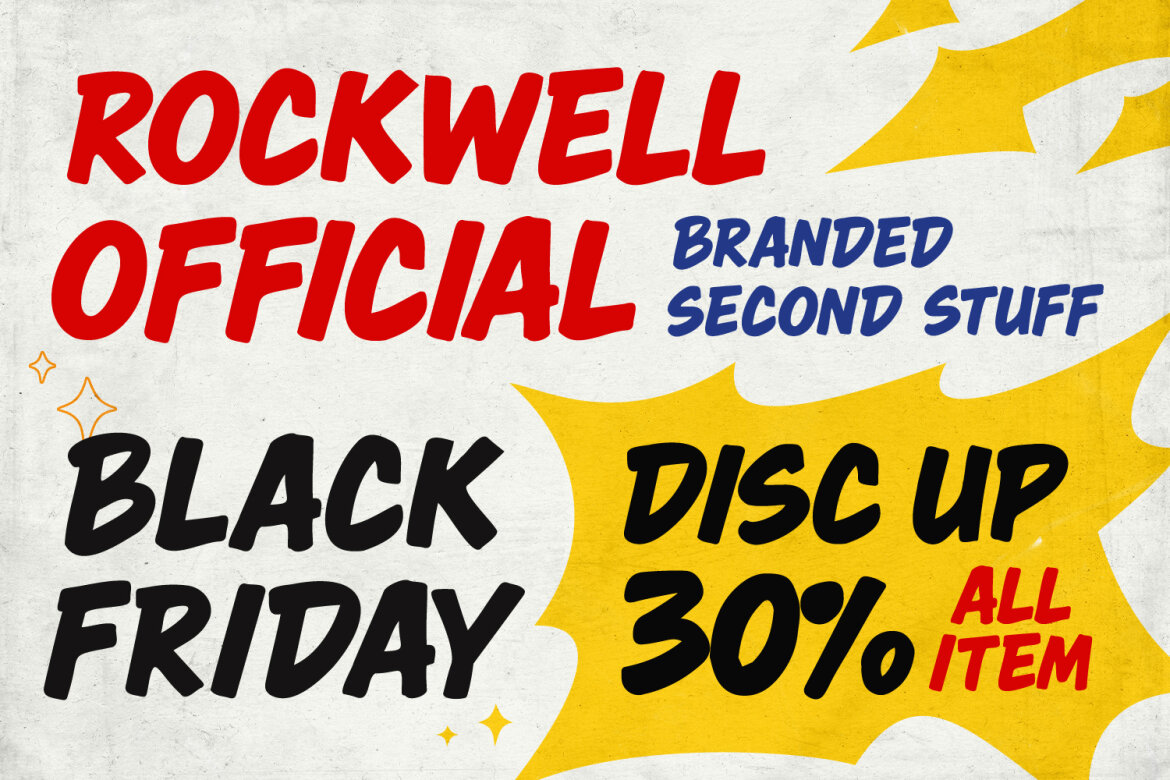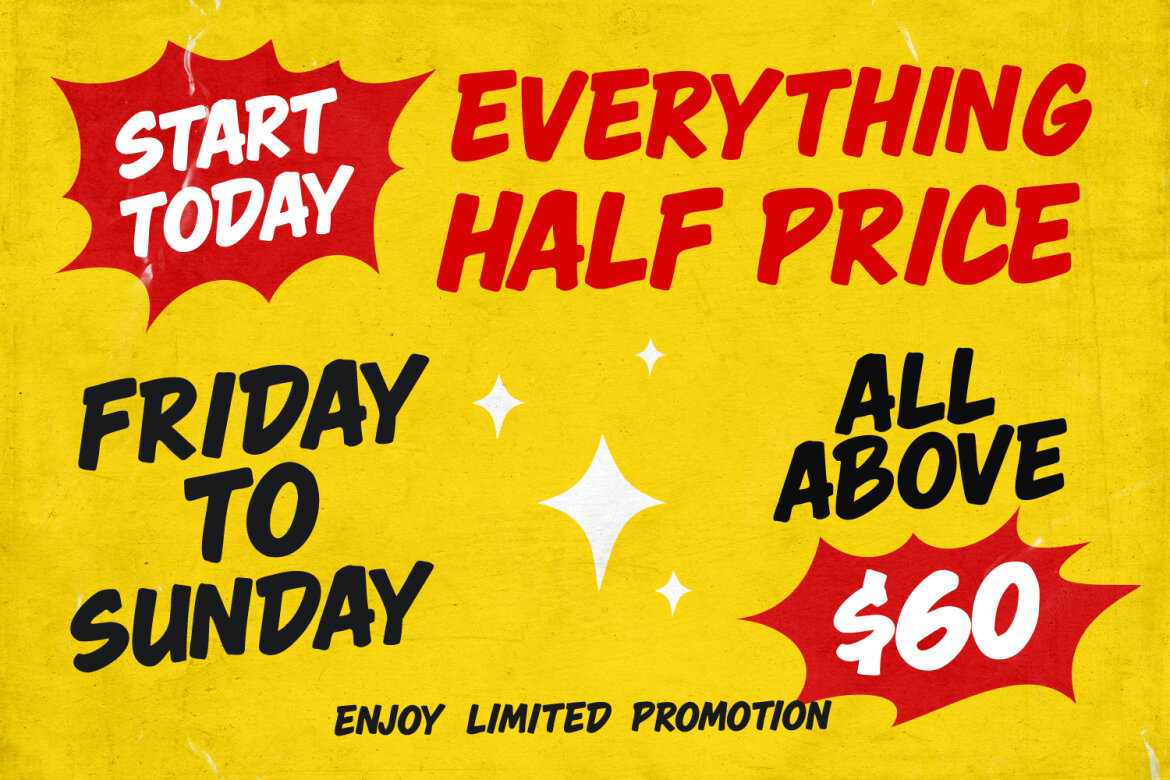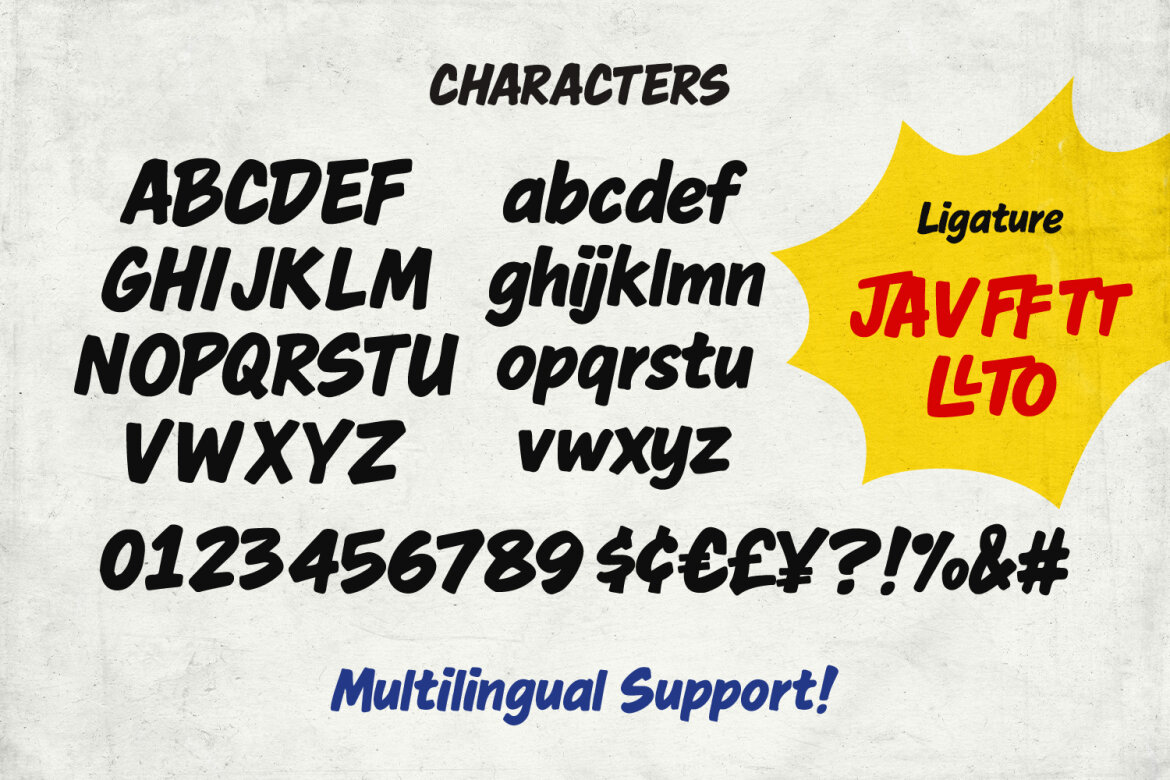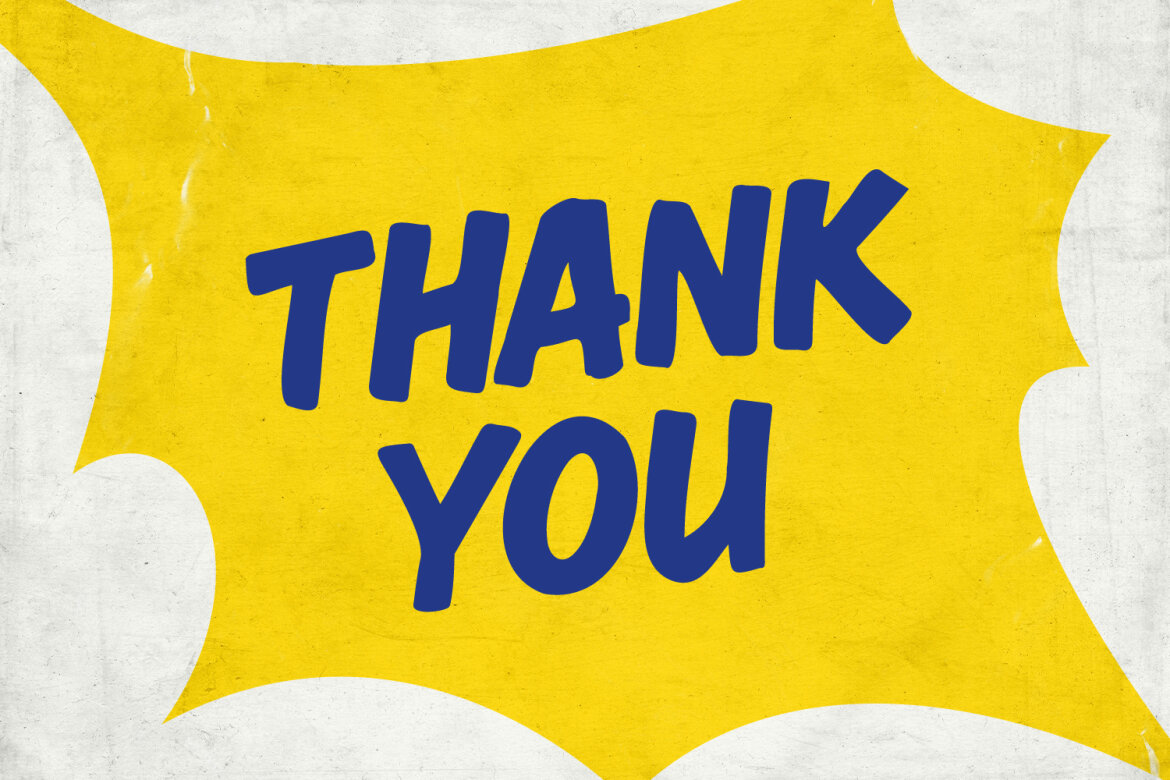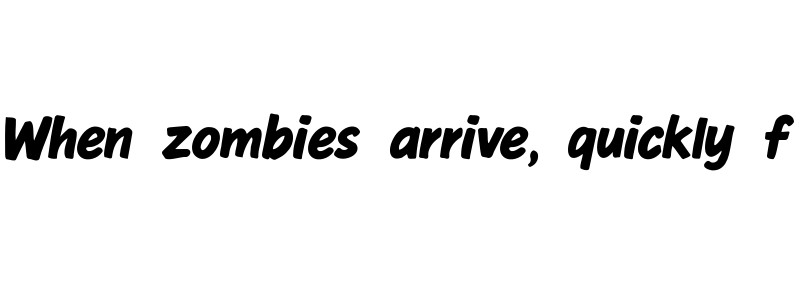
Hickolis Cromeson Free Font
Hickolis Cromeson
Inject pure energy and a raw, handcrafted feel into your projects with Hickolis Cromeson. Designed to capture the authentic, thick strokes of a permanent marker, this font is all about making a loud and confident statement. Whether you are designing a high-impact headline, a trendy restaurant menu, or eye-catching social media graphics, Hickolis Cromeson delivers a bold, urban personality that is impossible to ignore.
Its slightly slanted, rhythmic flow gives your text a sense of motion and urgency, making it perfect for promotions, street style branding, and athletic.
• Full Character Set: Uppercase and lowercase letters with a consistent marker texture.
• Numbers & Punctuation: Complete set for all your functional design needs.
• Unique Ligatures: Special character combinations to give your typography a more natural, custom-hand-lettered look.
• Multilingual Support: Ready for global reach, supporting a wide range of characters.
Perfect for: Logos, Branding, Burger Menus, Black Friday Sales, Graphic Design, YouTube Thumbnails, and any project that needs a burst of "Awesome."